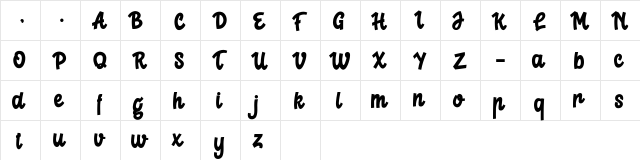
Crelay Regular
| Designer | Yougo Chan (Holydie Studio) |
Design Context for Crelay Typeface
Crelay is a composed and adaptable typeface that performs quietly and consistently across a wide range of design contexts.